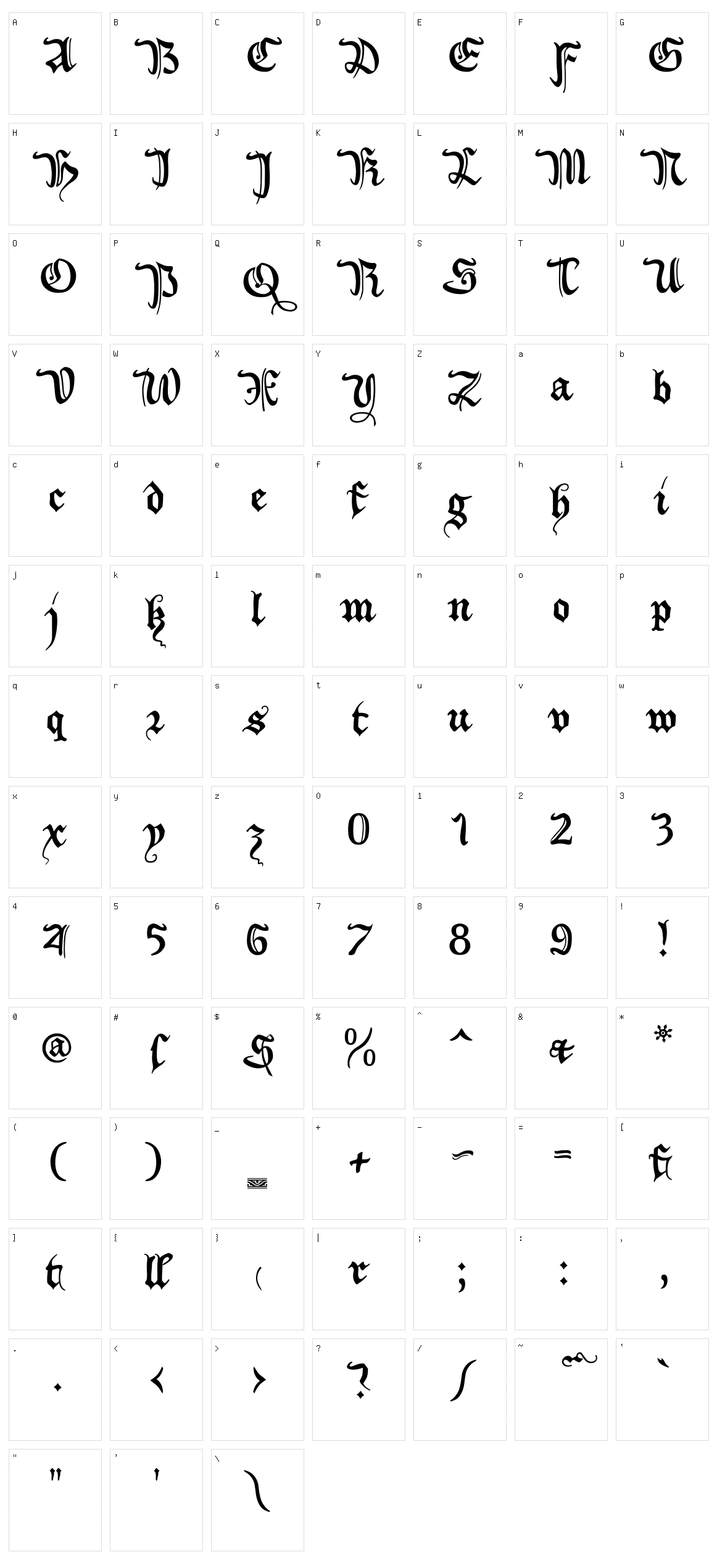
XiBeronne
Designed by: Pia Frauss
Category: Medieval & Gothic
XiBeronne 1.0
-- created by Pia Frauss in 2005, with High Logic's FontCreator Program --
The lower case glyphs of XiBeronne are plain Black Letter. They were inspired by a celebrated French manuscript written at the beginning of the 15th century, containing Gaston Phoebus' Book of the Hunt. The upper case characters are chiefly of my own invention, shaped to match a genuine A from another source.
As usual, you'll find a long s on the number sign.
-- There is an ending f on the left bracket...
-- ...and an ending t on the right bracket.
-- The left curly bracket contains a double l
-- On the right curly bracket you'll find a little swash to be employed before the first letter of words beginning with i, j, m, n, p, r, u, v, w, and z.
-- The bar sign contains an alternate r.
-- Finally, on the ASCII tilde you'll find a contemporary abbreviaton sign of indefinite meaning, to be employed as a decoration wherever you see fit to place one. It's to be handled like an accent (the char won't move when you type it).